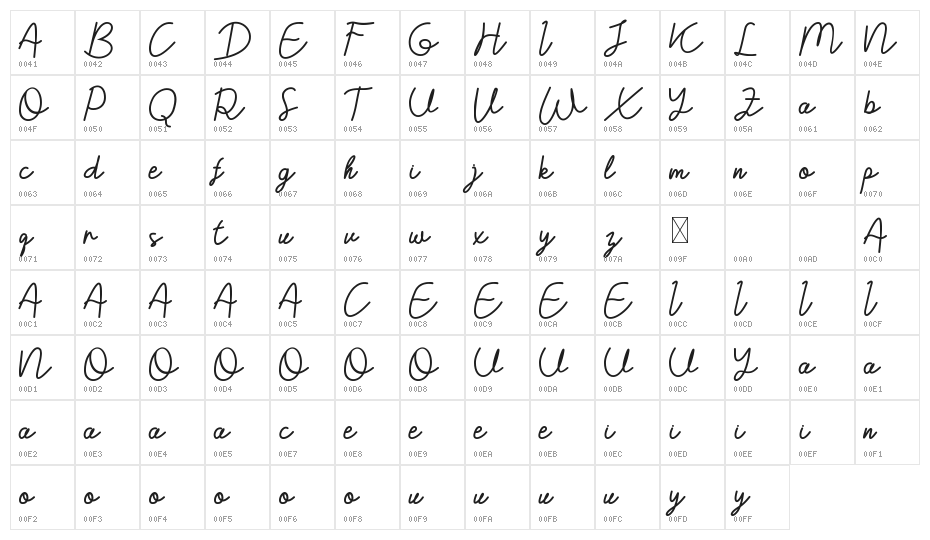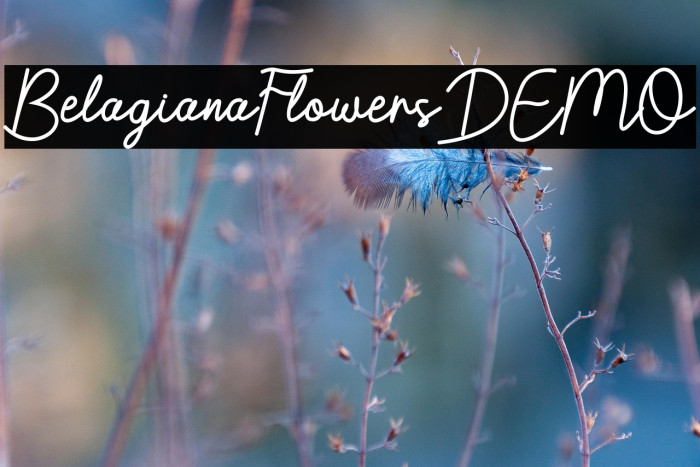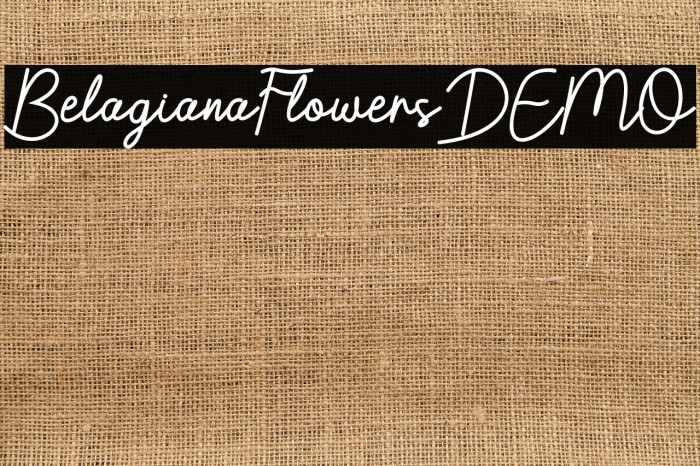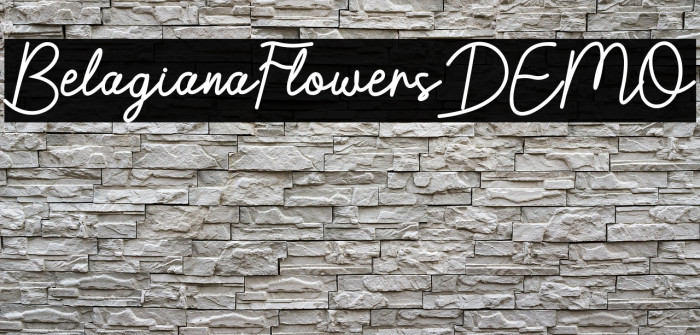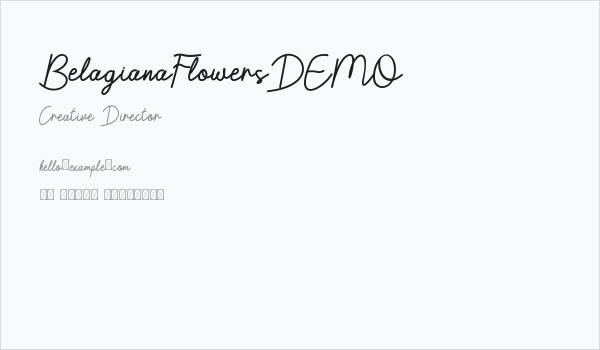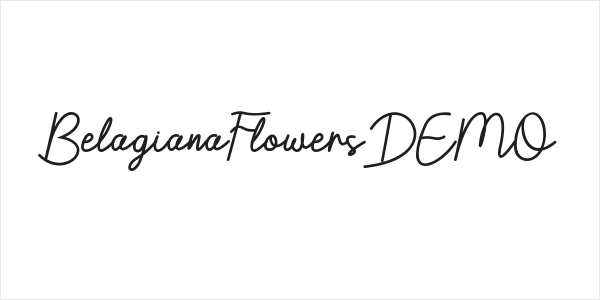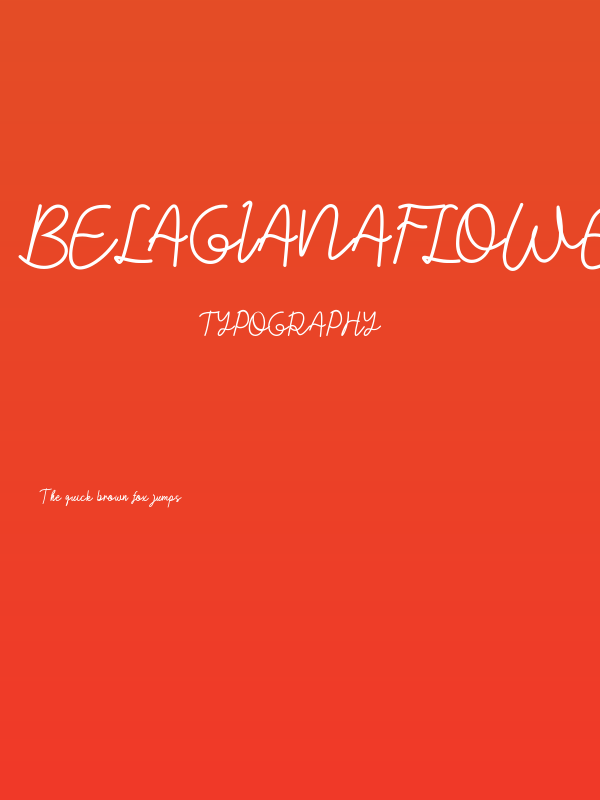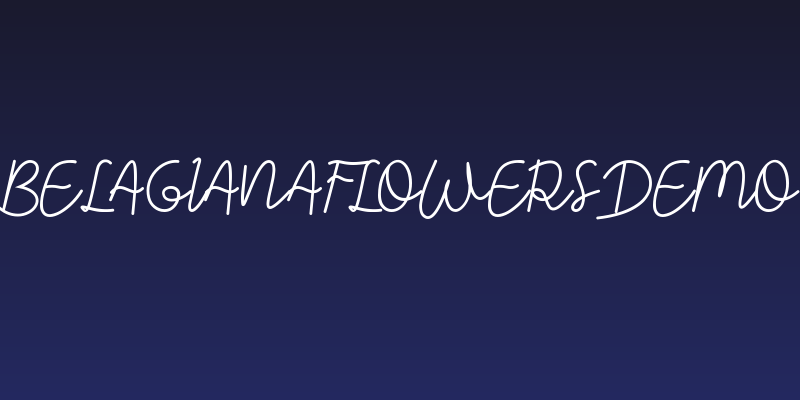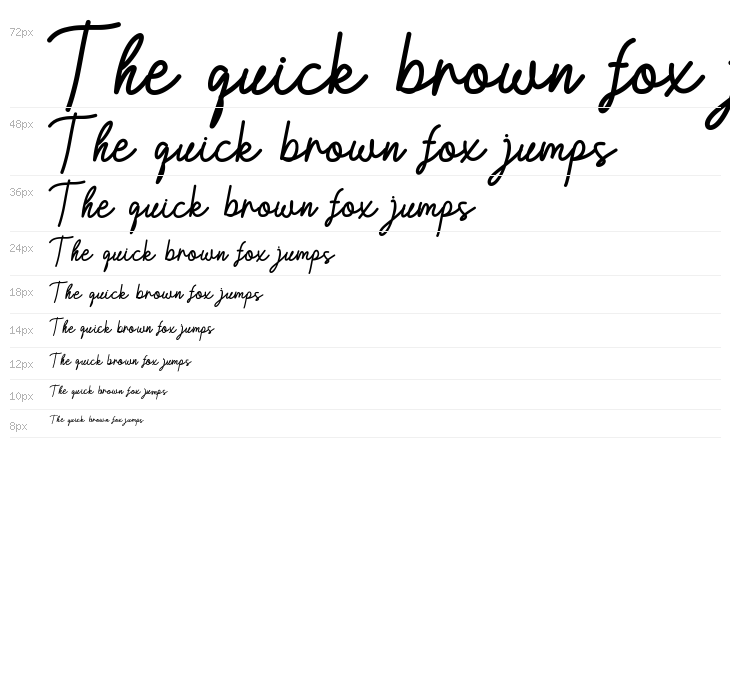
BelagianaFlowersDEMO Font
BelagianaFlowersDEMO Description
This font features a fluid, cursive style that mimics natural handwriting. The characters are elegantly connected, giving a sense of continuity and flow. The uppercase letters are slightly more structured, while the lowercase letters exhibit a more relaxed and freeform appearance. The strokes are smooth and consistent, with a medium thickness that ensures readability while maintaining a stylish flair. This font exudes a sense of elegance and sophistication, making it suitable for formal invitations, branding, and personal correspondence. The overall design is both modern and timeless, appealing to those who appreciate a touch of classic charm in their typography.
| Overall Style | Elegant, Modern |
| Use Case | Invitations, Branding, Personal Correspondence |
| Proposed Projects | Ideal for wedding invitations, personal branding, elegant stationery, and artistic projects. |